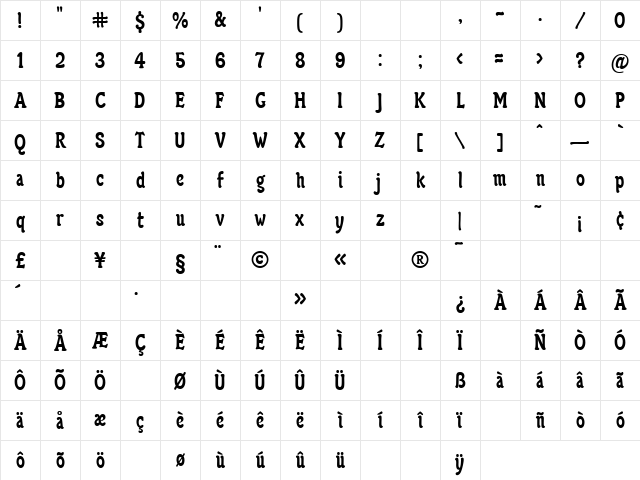
TLTheatreAntoine Medium Free Font
TLTheatreAntoine Medium
Design Context for TLTheatreAntoine
TLTheatreAntoine is a composed and adaptable typeface that performs quietly and consistently across a wide range of design contexts.